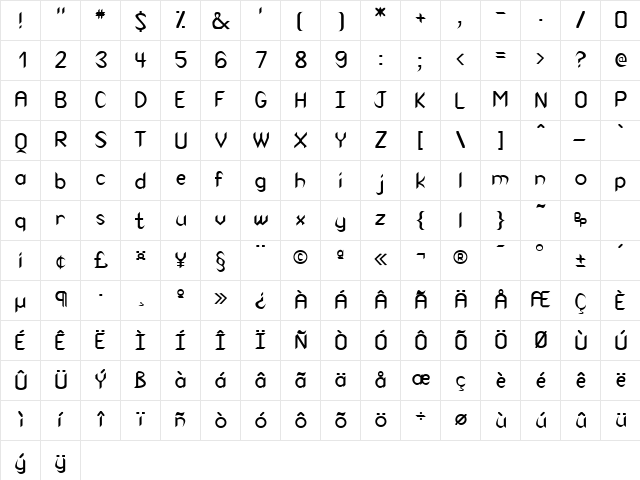
Jayhawk Normal
Design Context for Jayhawk Typeface
Jayhawk takes a measured approach to typography — its balanced proportions and neutral character make it a reliable workhorse for both digital and print work.